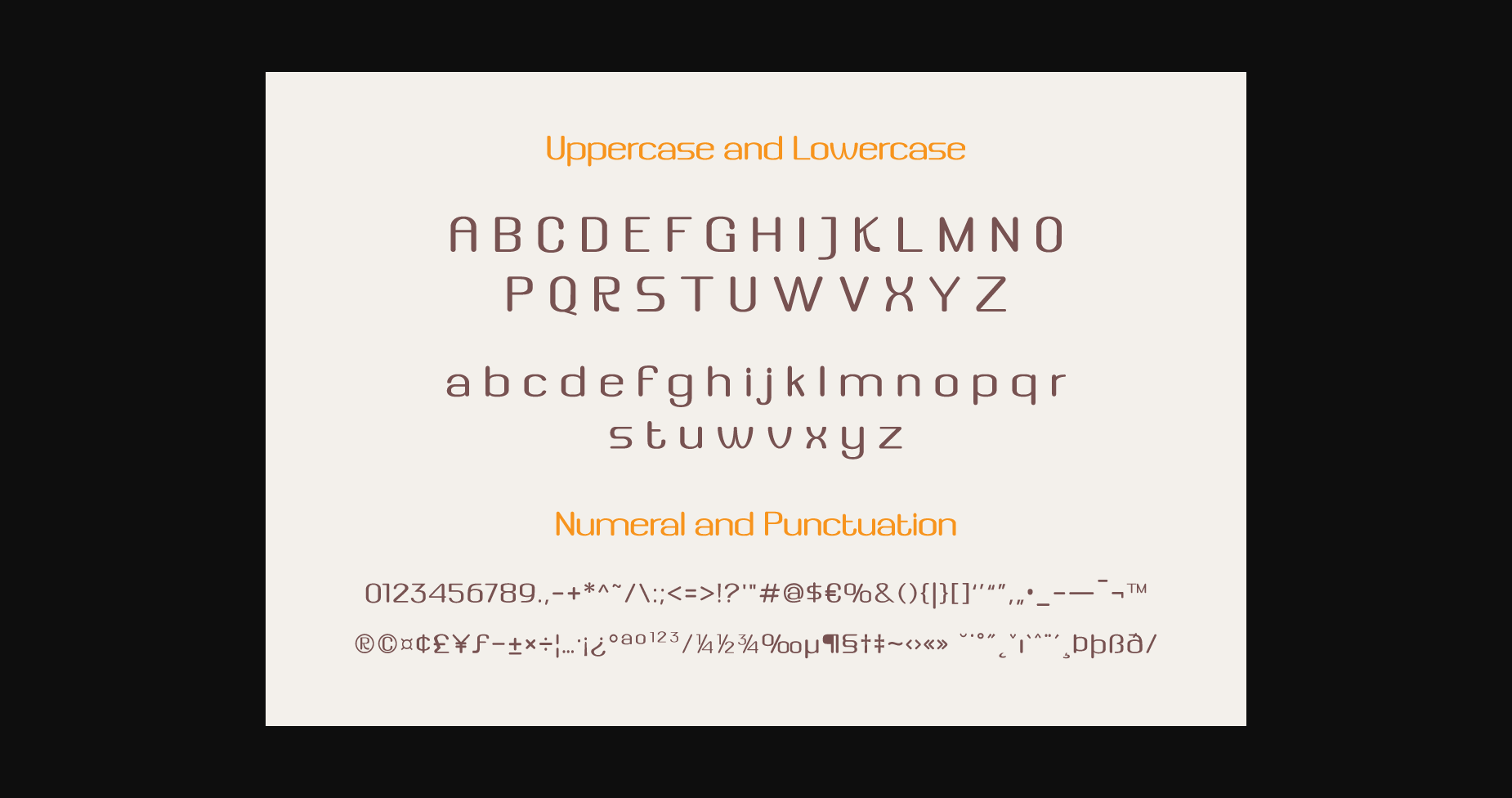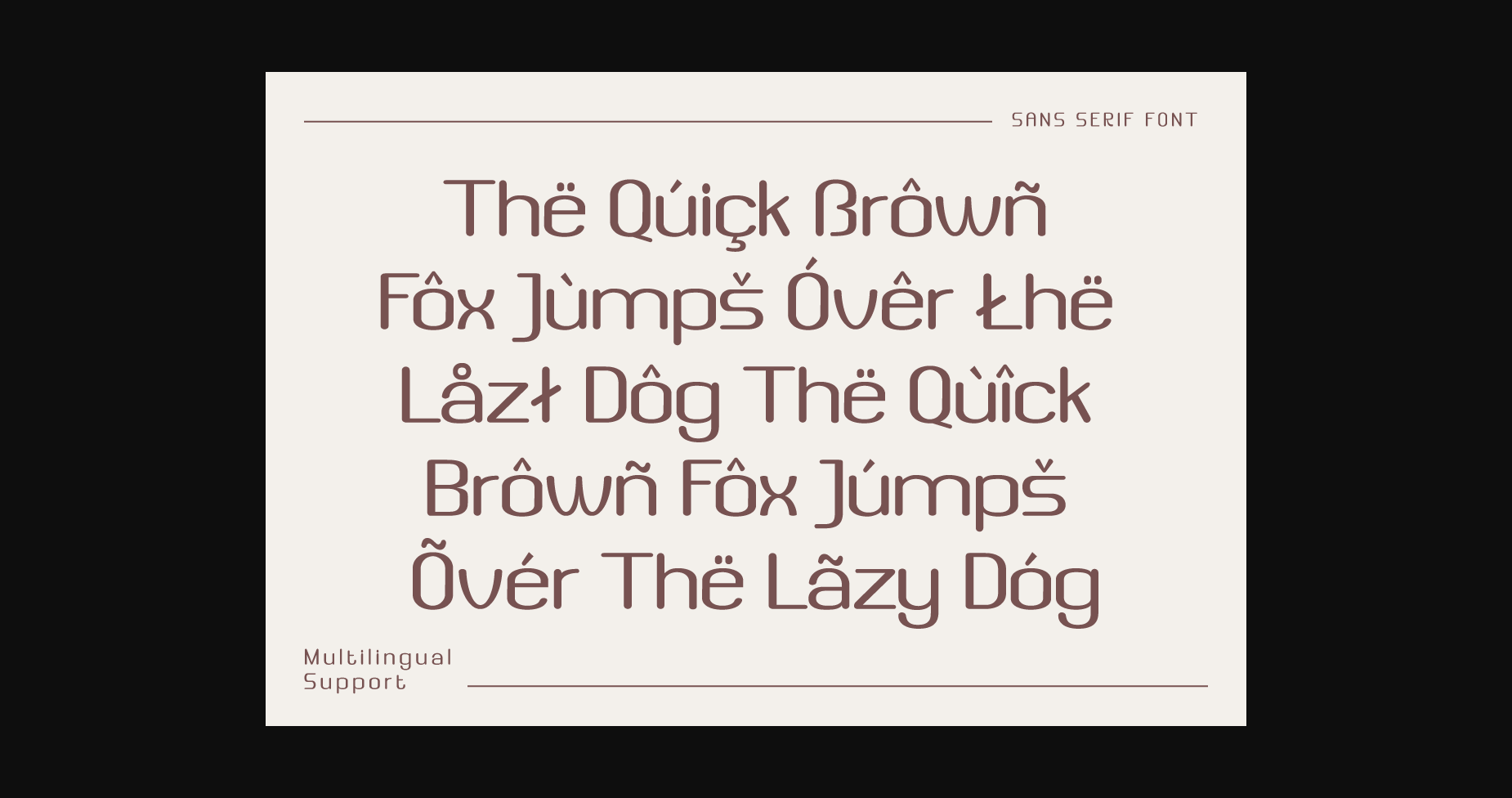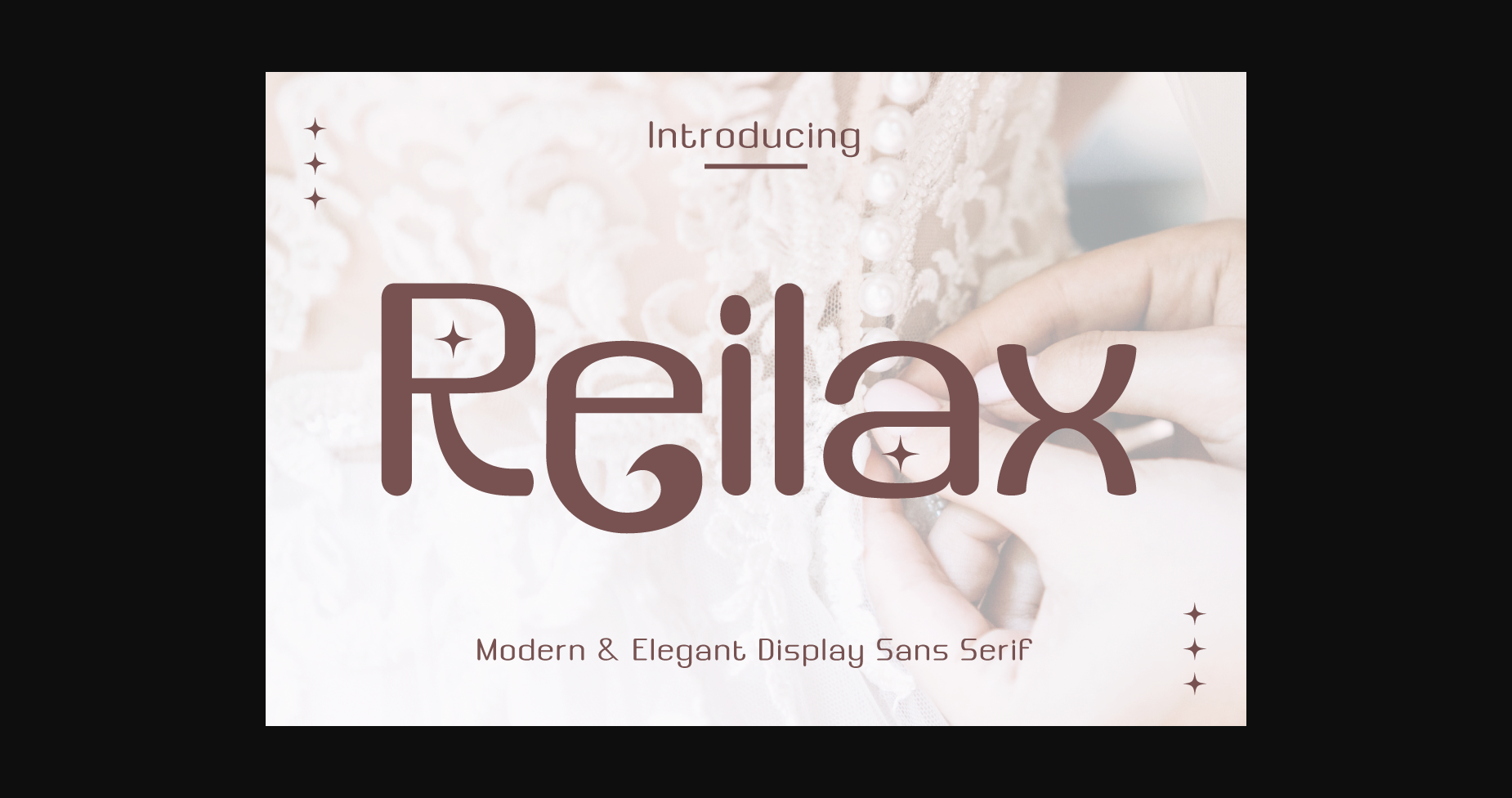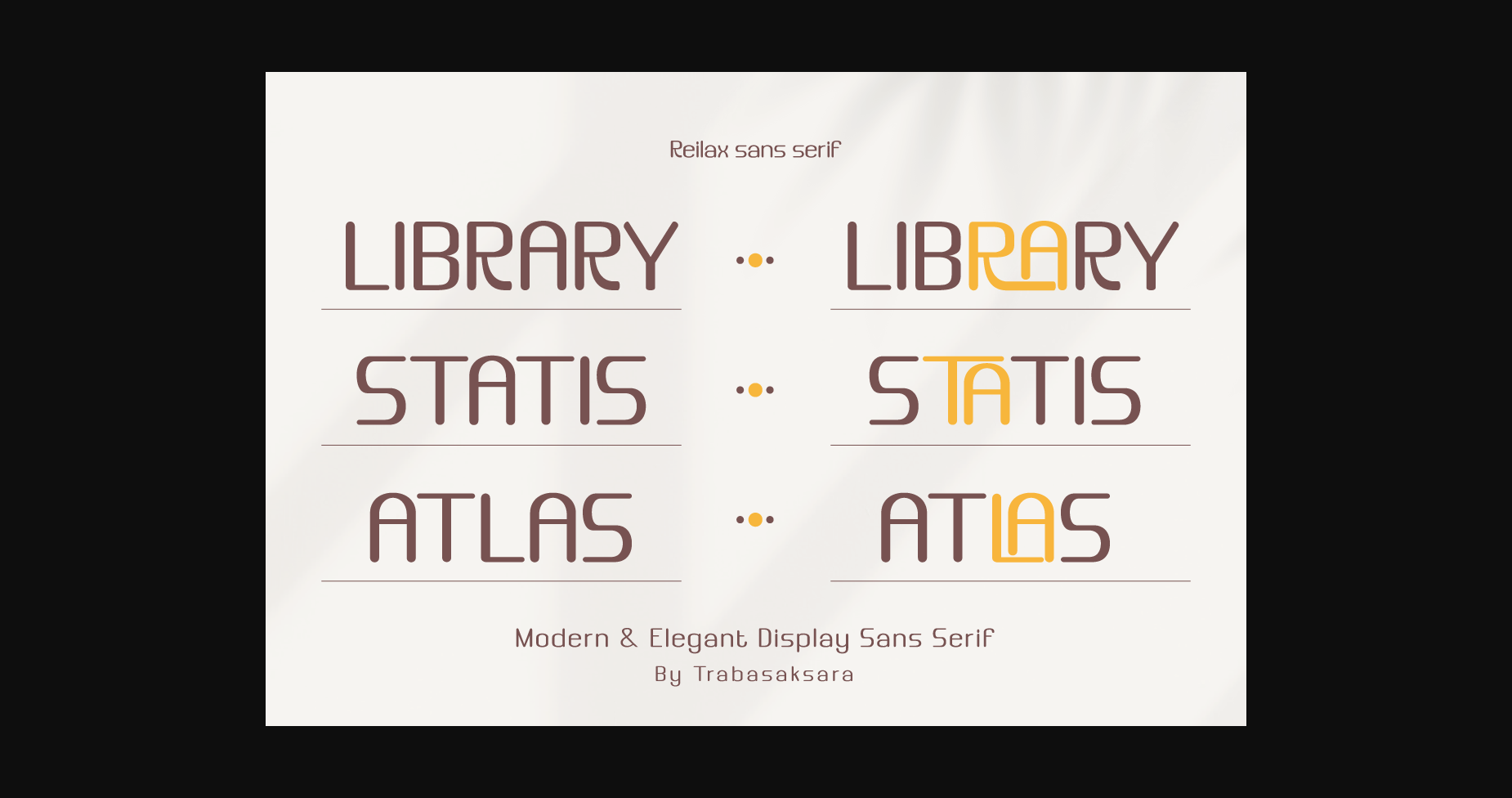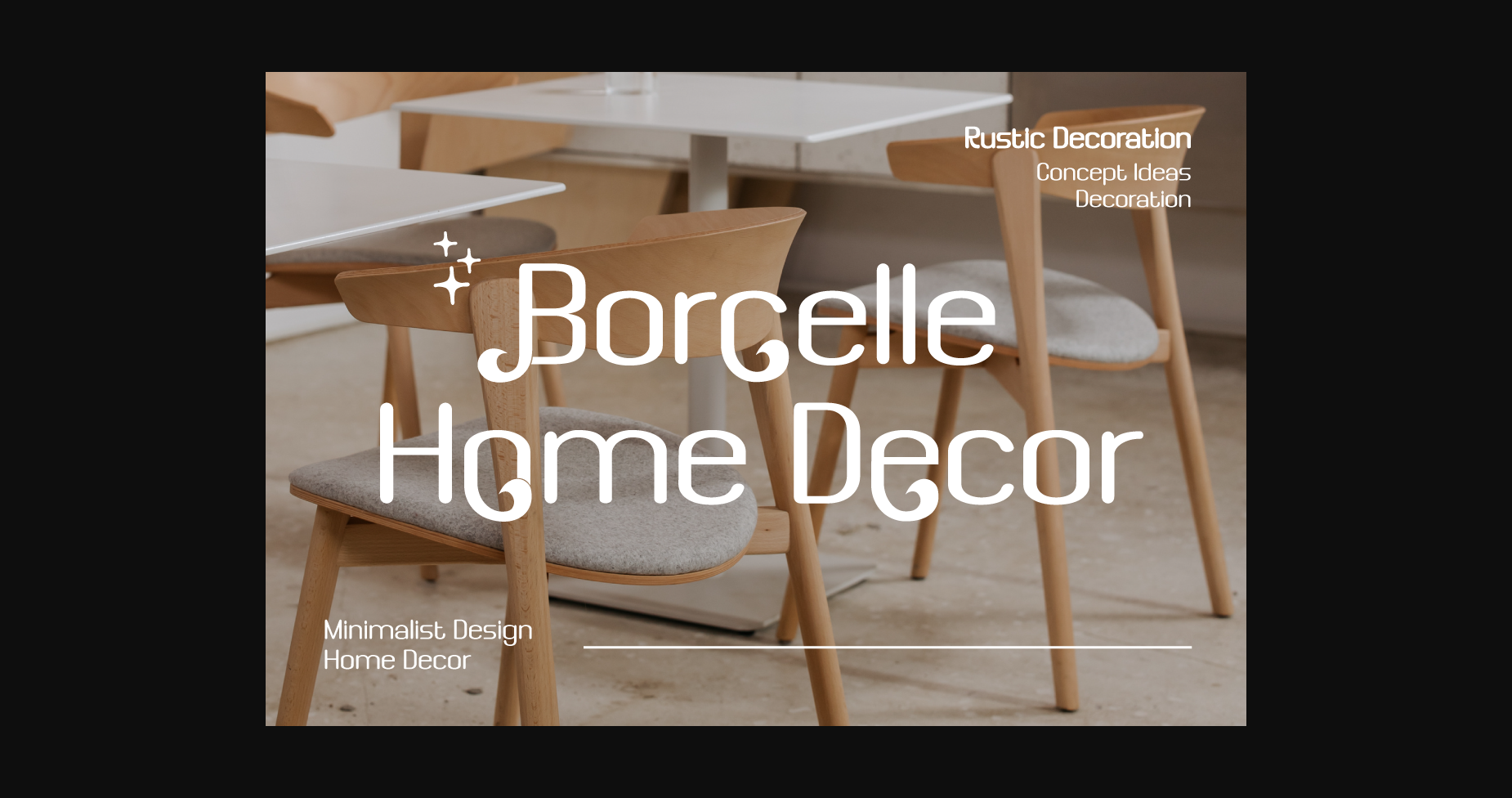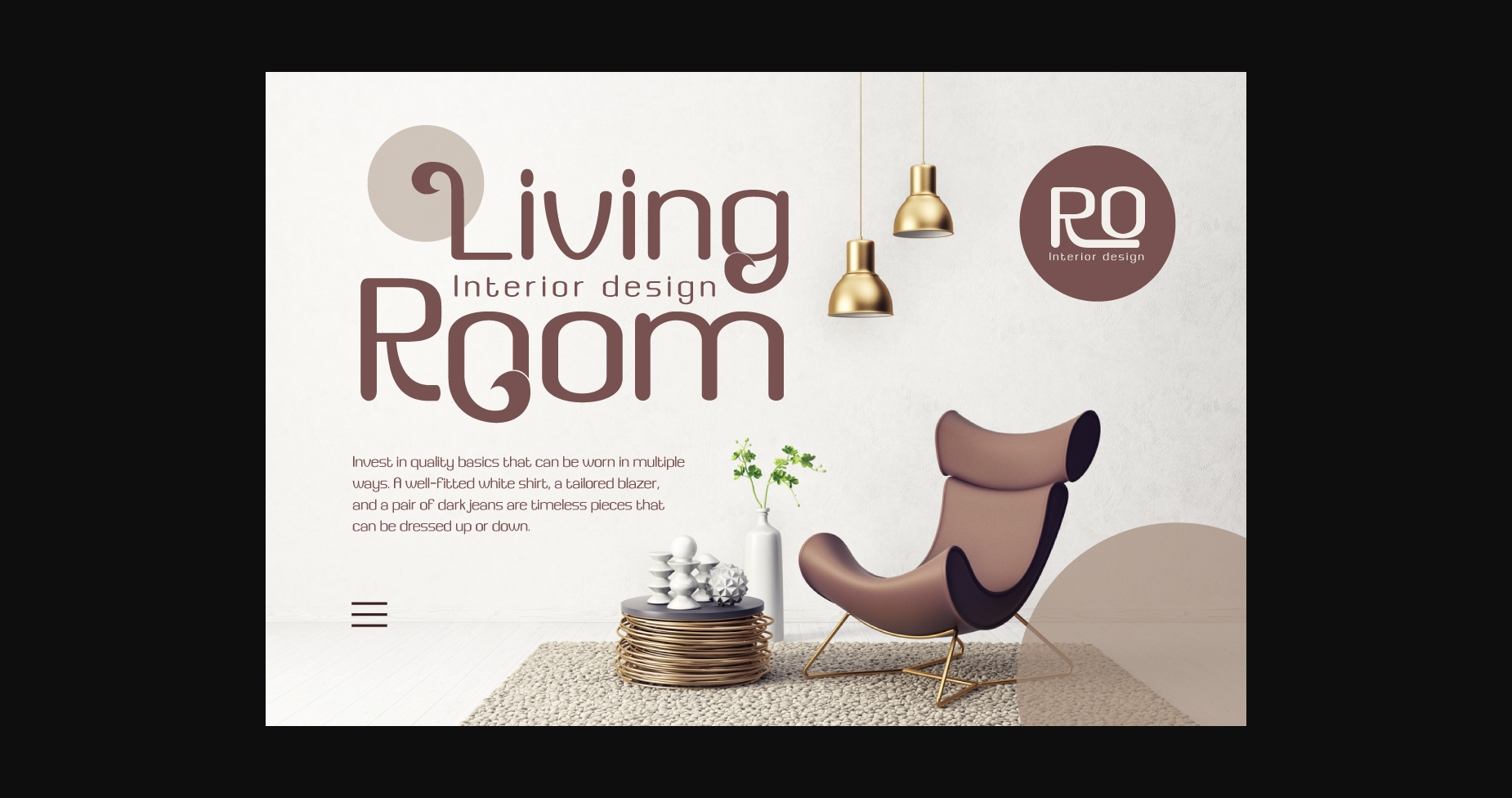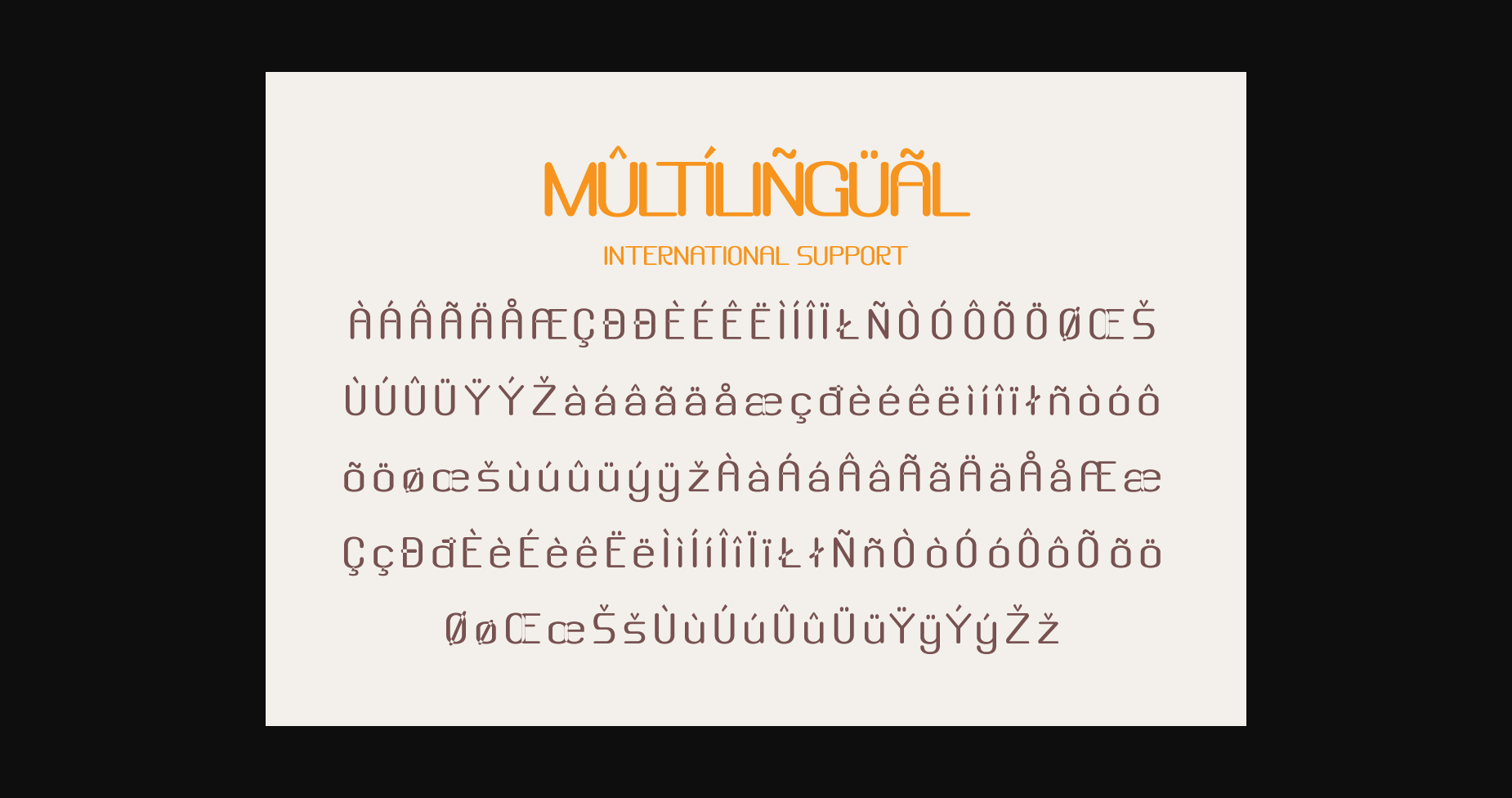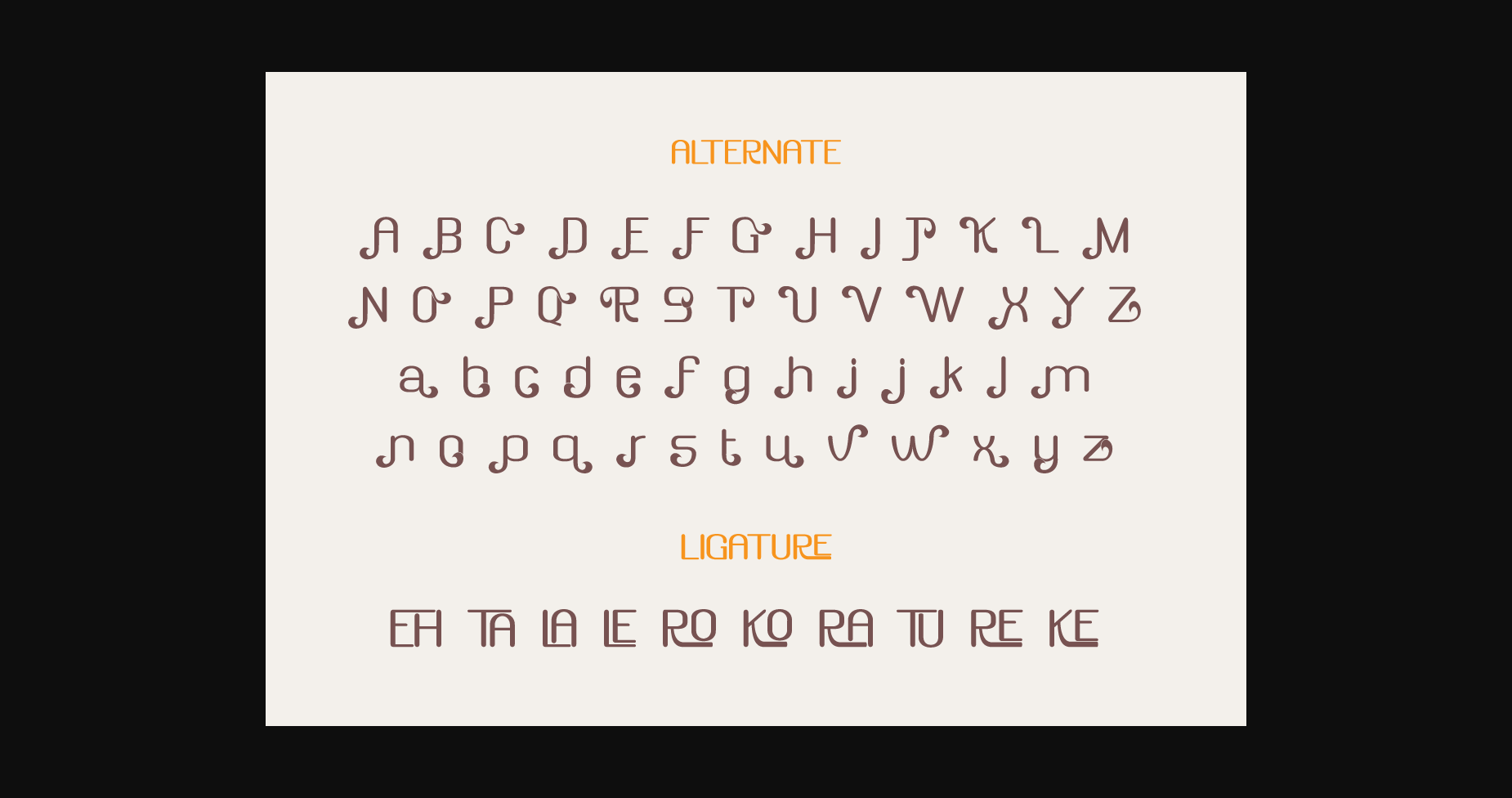
Reilax Font
About Reilax Font
Reilax is a modern and elegant sans serif display font suitable for various design purposes such as branding, logos, poster design, print and digital media, and many more! Reilax allows you to express your creativity and will make your projects look more attractive and professional. Get Reilax now, and start creating stunning designs!